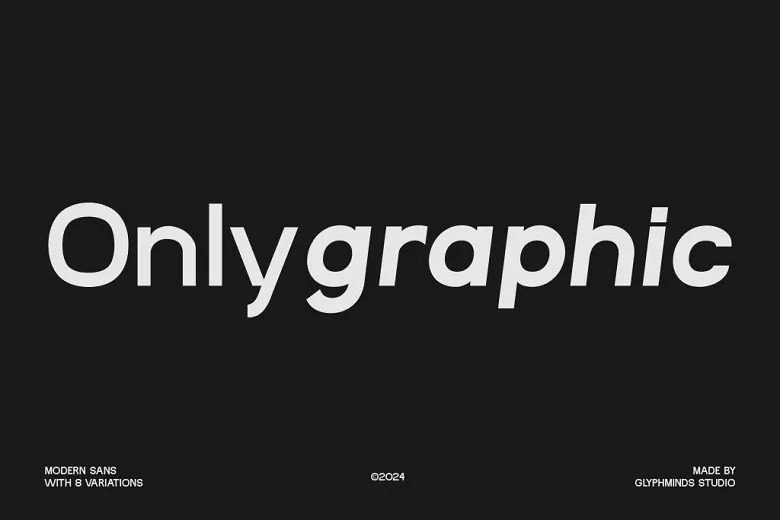
Onlygraphic Font is a sleek and sophisticated sans-serif typeface that exudes professionalism and modernity. Its clean lines and uncluttered design make it a go-to choice for designers aiming to create a polished and refined aesthetic. Whether you're working on corporate branding, marketing materials, or digital projects, Onlygraphic Font delivers a timeless elegance that elevates any creative endeavor.
With 8 versatile variations, Onlygraphic Font offers adaptability across various design contexts. From branding and logos to websites and apps, its simplicity ensures a cohesive and professional look. The font’s minimalist design allows it to fit seamlessly into projects where a strong, clear visual is essential, making it ideal for businesses and professionals seeking a polished presentation.
Despite its clean and simple appearance, Onlygraphic Font leaves a lasting impact. Its bold, striking letterforms ensure that your work stands out without overwhelming the viewer. Whether used in social media graphics or posters, this font's strong visual presence makes it a powerful tool for capturing attention in any crowded space.